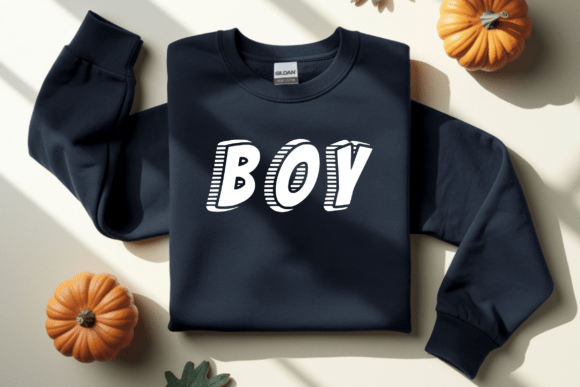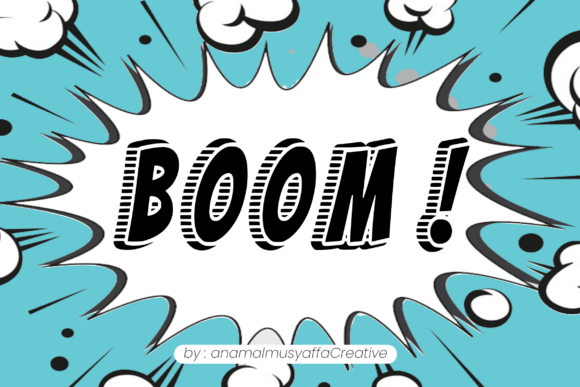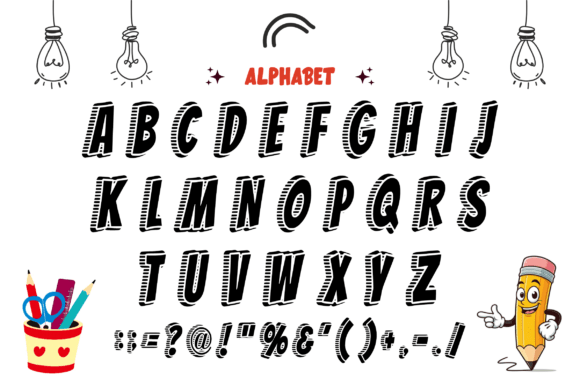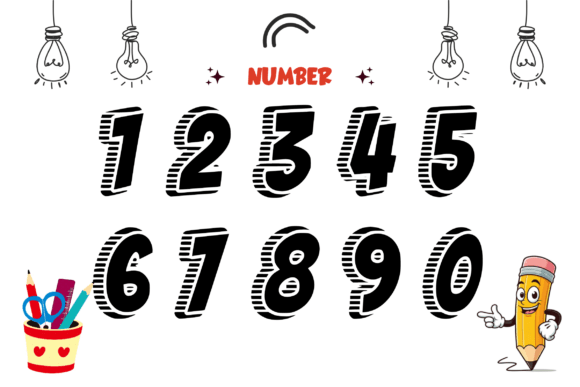
Introduction to Late Hero Font Font
Fonts play a crucial role in design, and the Late Hero Font font is a typeface that brings both character and versatility to any project. Whether you’re working on a branding project, a website, or a print design, the Late Hero Font font offers a unique style that can elevate your work.
Presenting βLate Hero,β a contemporary comic font style that incorporates a dash of distinctiveness to every character, making its application effortless.
This font breathes life into your sublimation designs, whether itβs for trendy t-shirts, delightful mugs, fashionable tote bags, vivacious animations, or captivating comic titles Embrace βLate Heroβ and let your creativity unfurl.
Key Features of Late Hero Font Font
Why Choose Late Hero Font Font?
The Late Hero Font font is more than just a typeface β it’s a design tool that helps you communicate your message with style and clarity. Its unique character set and versatile design make it suitable for a wide range of applications, from elegant invitations to bold headlines.
With its carefully crafted letterforms and balanced proportions, the Late Hero Font font ensures readability and visual appeal across all mediums.
What makes Late Hero Font font special?
The Late Hero Font font stands out with its unique design, exceptional readability, and versatility across various design applications.